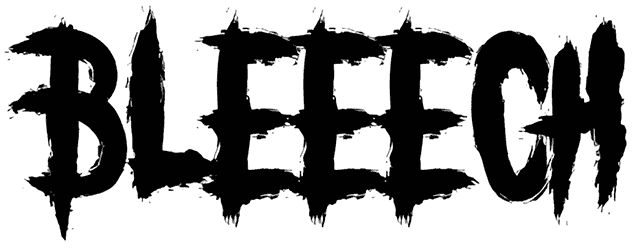
Bleeech Font
Why go into so much trouble when there is a simpler way to create a scary tone for your content? One of them is Bleeech, a satanic font that easily achieves what you want from it.
Yeah, there are no lowercase letters, numbers, or punctuation marks in this collection, but if you put your mind to it, this won’t be a problem for you. Resource Boy is here to help you bring your ideas to life easily.
V scary font for deathcore. Kinda thick and spiky.